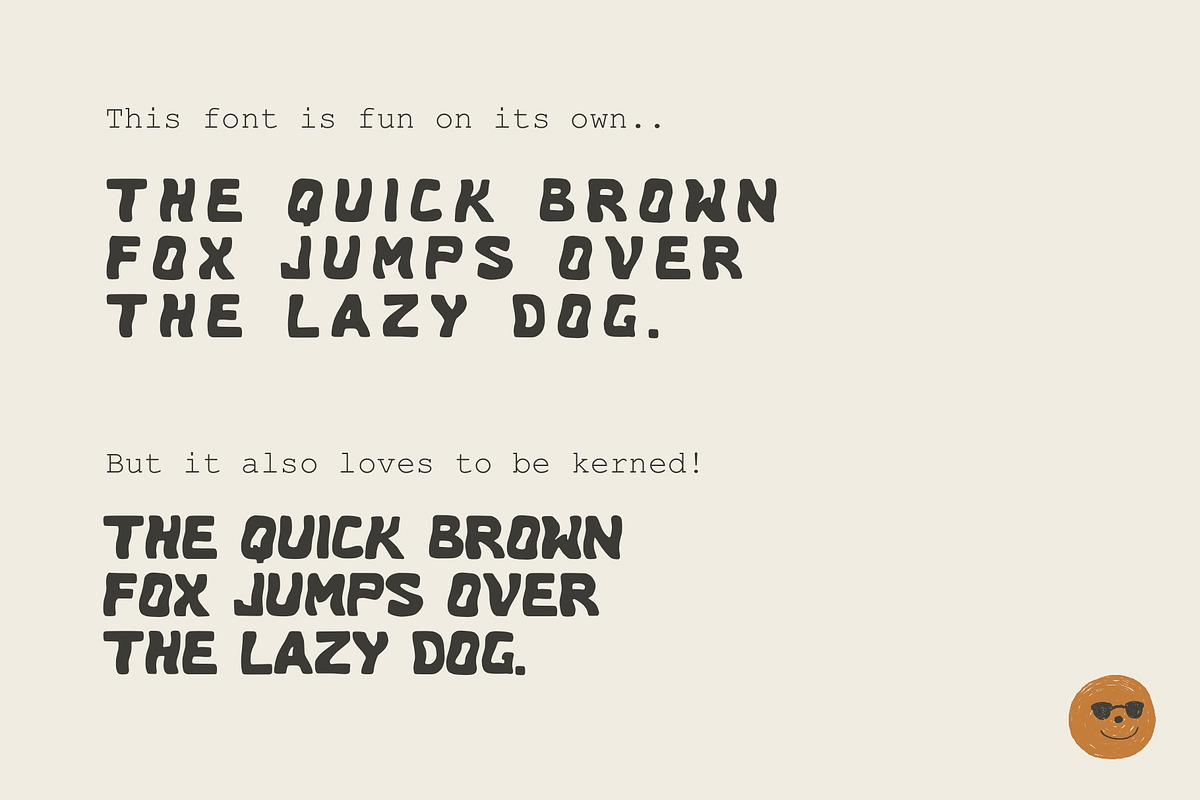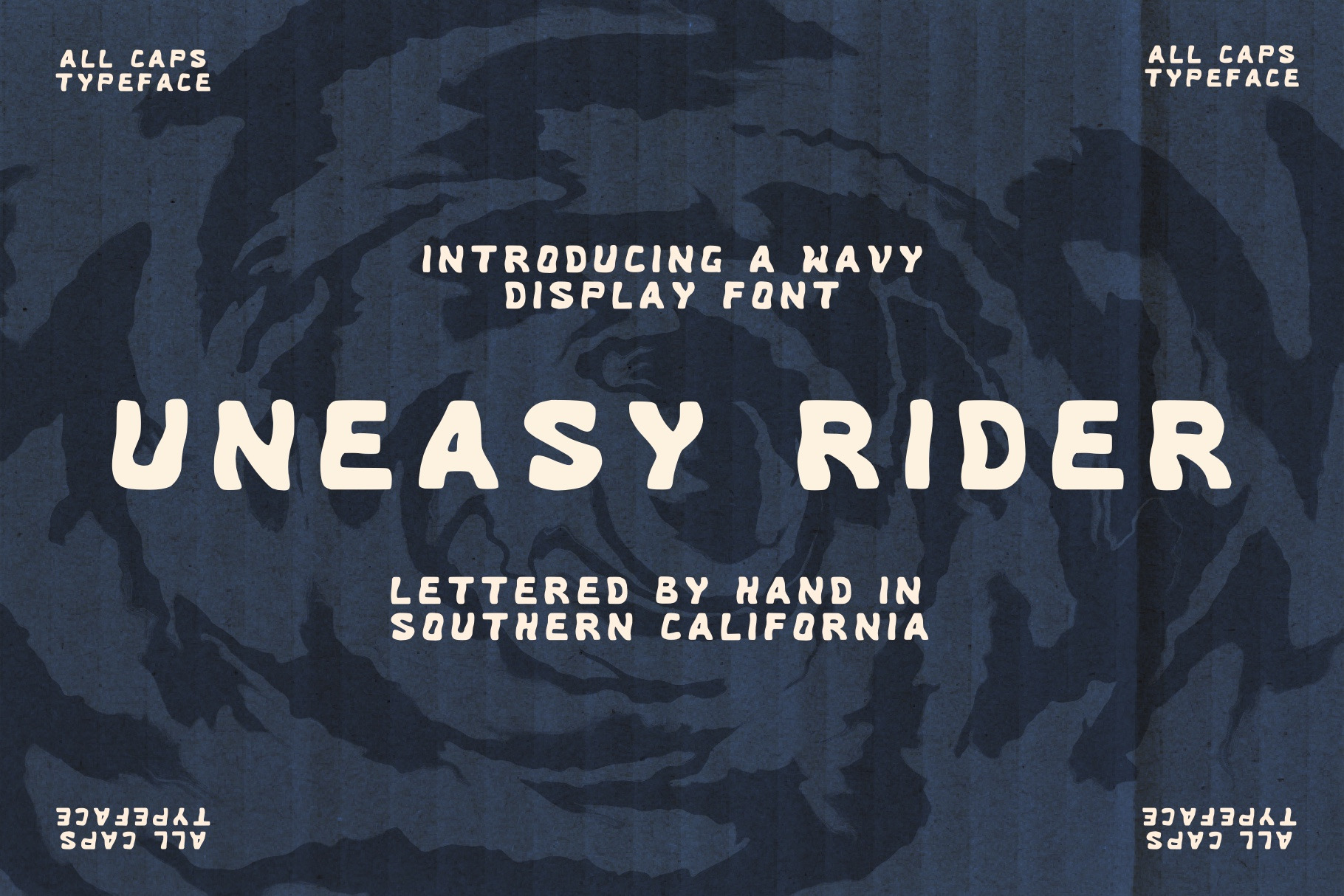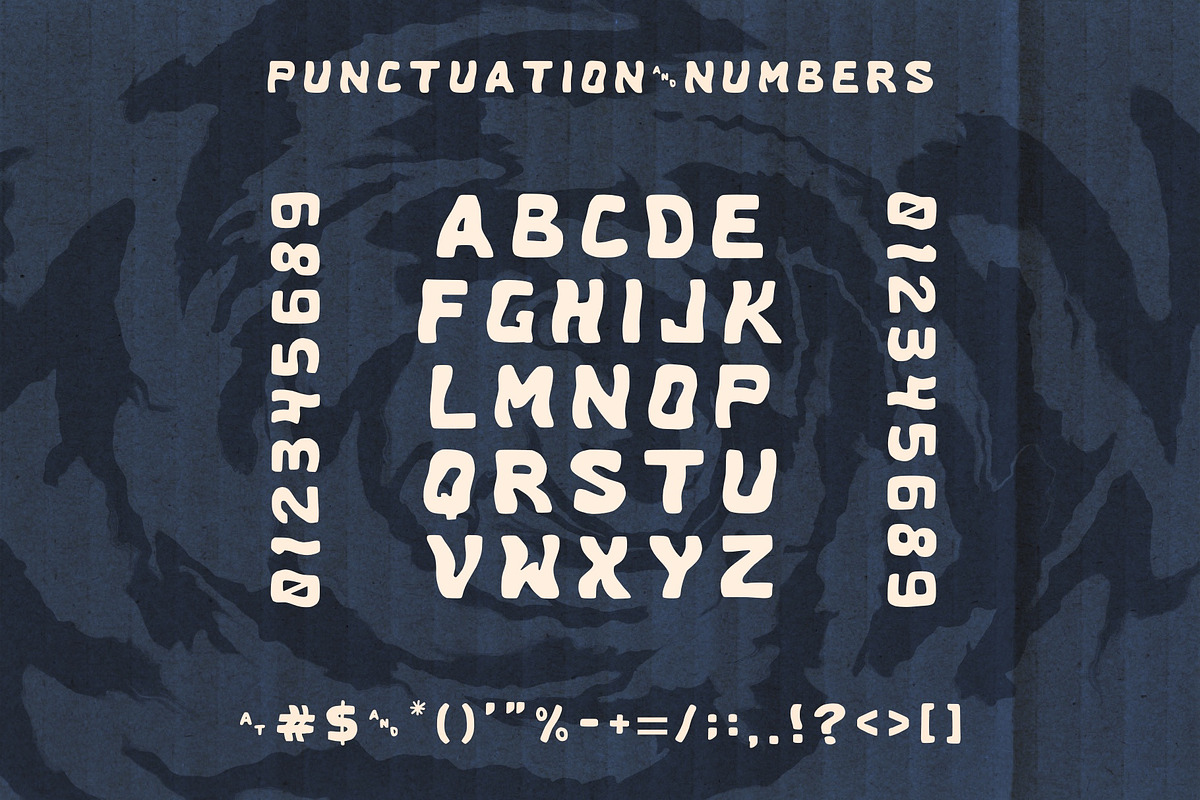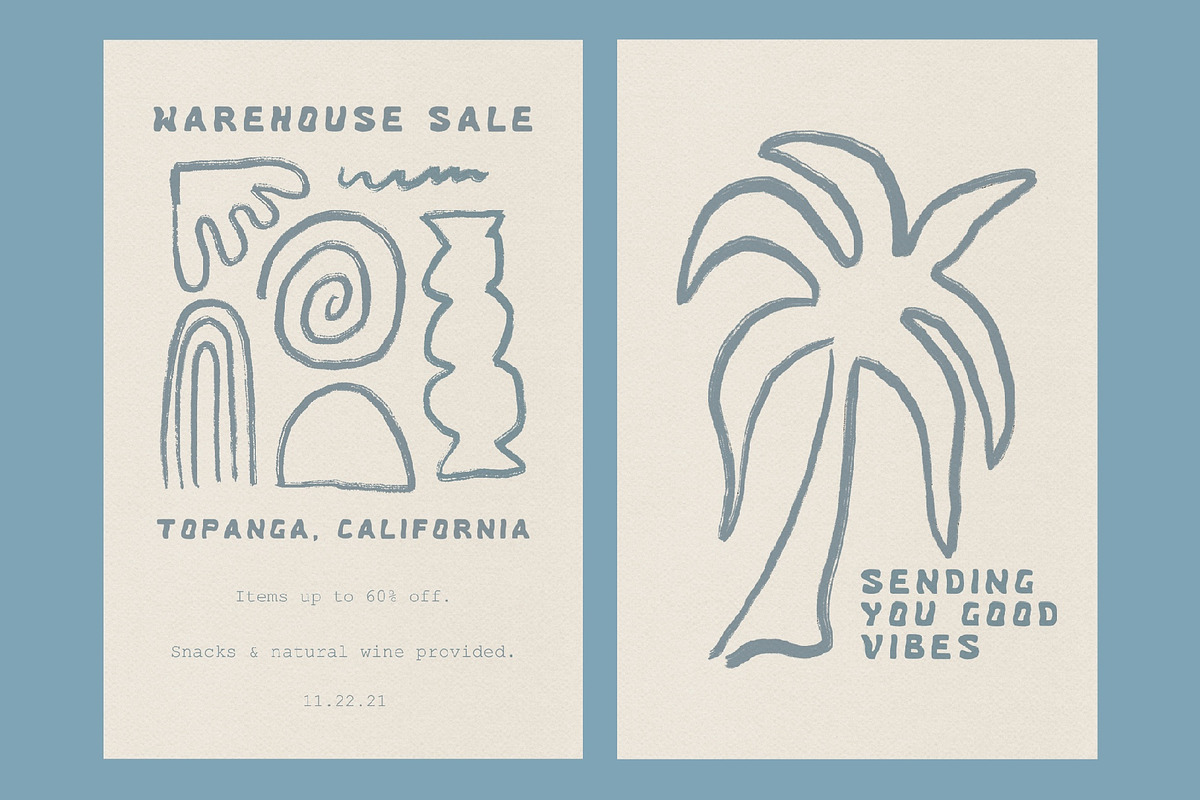
Uneasy Rider | Hand Drawn Wavy Font
Uneasy Rider is the trippy cousin of my other font “Easy Rider.” This guy can bring a laid back, unconventional vibe to any project.
This is an all-caps typeface perfect for posters, branding, logos, stationary, and more.
- Uppercase characters
- Standard numbers, punctuation, and mathematical symbols